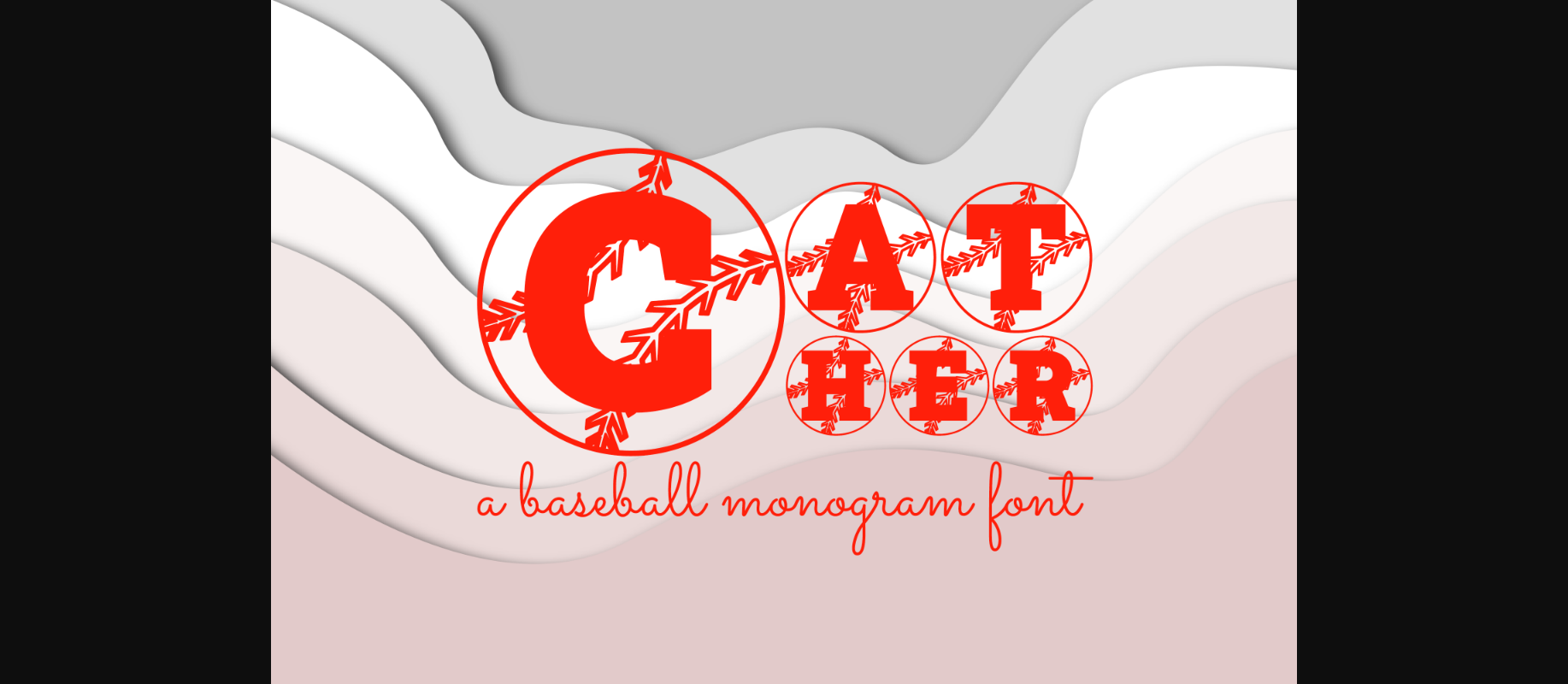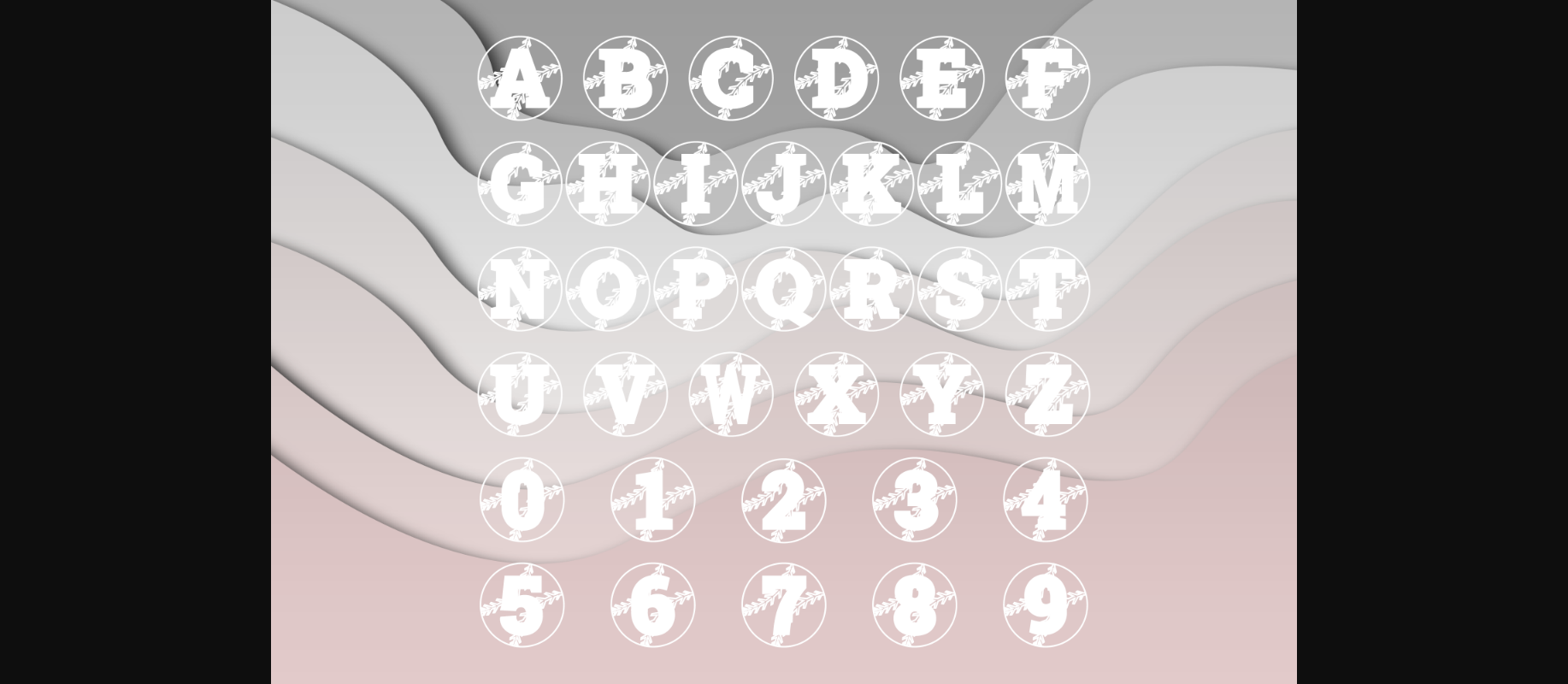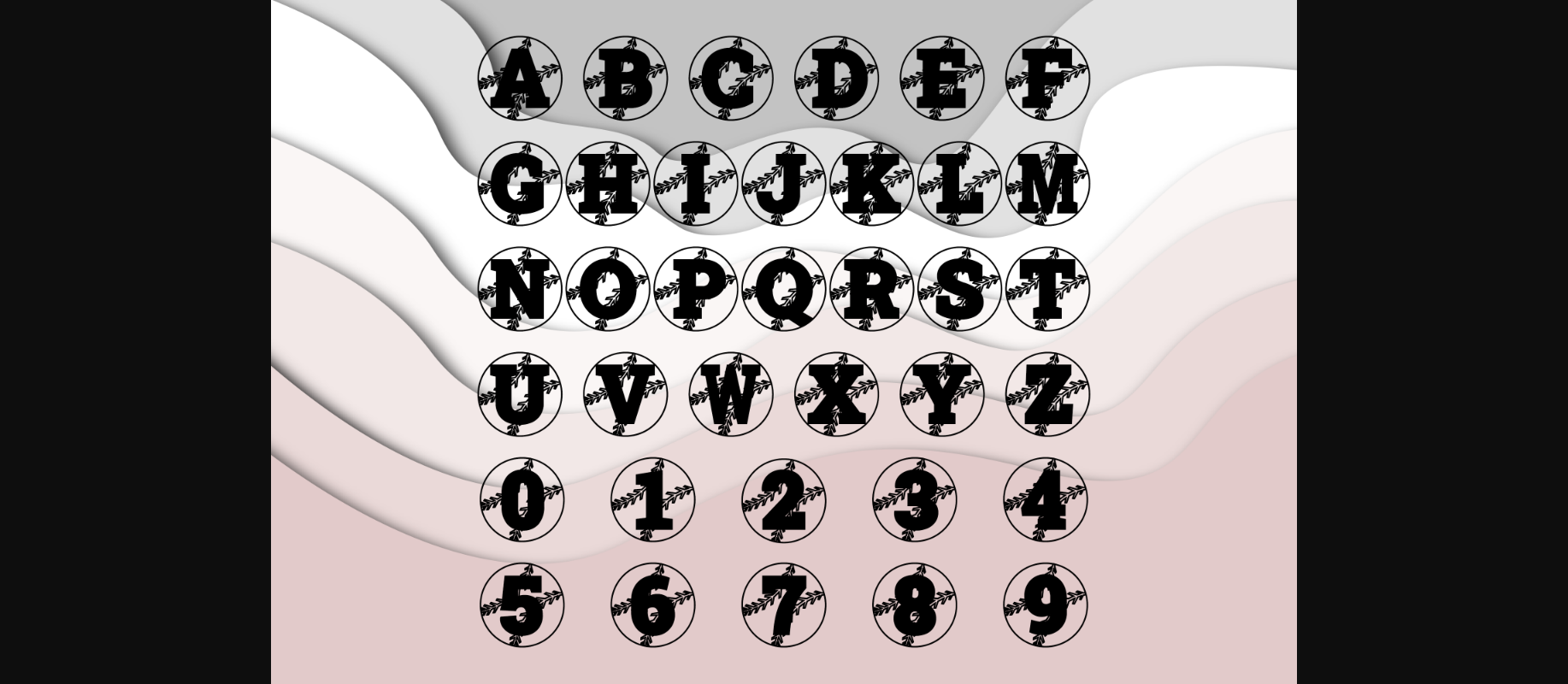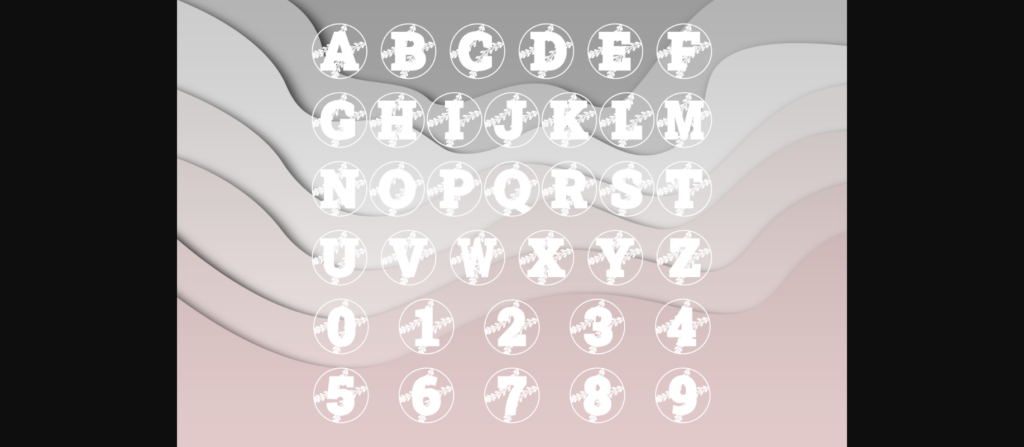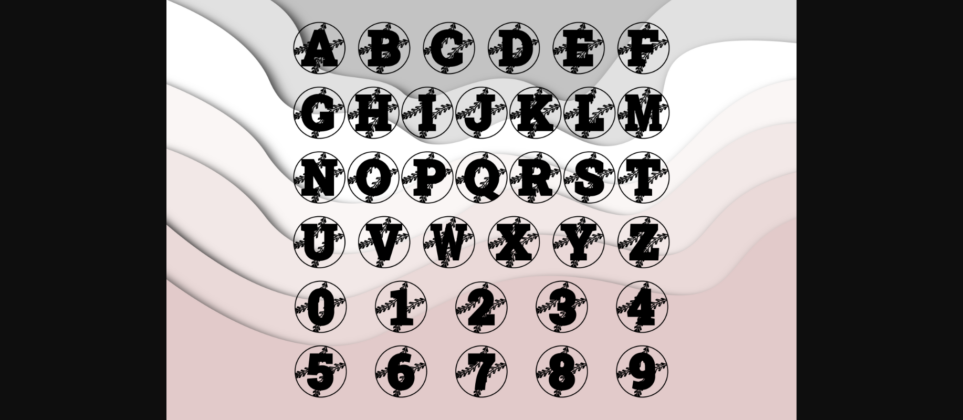
HomeDecorative FontsCatcher Font Decorative Fonts Catcher Font FacebookXPinterestWhatsApp 1 of 5 ... Catcher Font Poster 2... Catcher Font Poster 3... Catcher Font Poster 4... Catcher Font Poster 5... About Catcher Font Catcher is an incredibly cool decorative font. Whether you use it for custom designs, DIY crafts, or just any creation that requires a lovely touch, this font will be an amazing choice. DOWNLOAD NOW People also explored Biphoton Octogamy Font Maxilla Font Grage Font Balcon a Lisbonne Font Heart Keeper Font Melvin Font Wrenn Family Font Emily Geraldine Font 381 0 TagsCatcherCatcher Font Previous articleBaseball FontNext articleBatter Font LEAVE A REPLY Cancel reply Comment: Please enter your comment! Name:* Please enter your name here Email:* You have entered an incorrect email address! Please enter your email address here Website: Save my name, email, and website in this browser for the next time I comment. Personal Use Free Almonte Personal Use Free Read more about this font Oatmeal Personal Use Free Read more about this font Planning Personal Use Free Read more about this font Densmore Personal Use Free Read more about this font BLOG How to Cut Any Font on Cricut: Convert a Font to SVG (Free) Turn any font into a clean SVG so it cuts crisp on Cricut - a quick 3-step workflow using a free font-to-SVG tool. Modern Sans-Serif Fonts That Brands Love in 2025 Transform Your Website: Elevate Your Typography with 7 Best Web Font Generators Elegant Wedding Invitation Fonts – Handwritten & Script Fonts